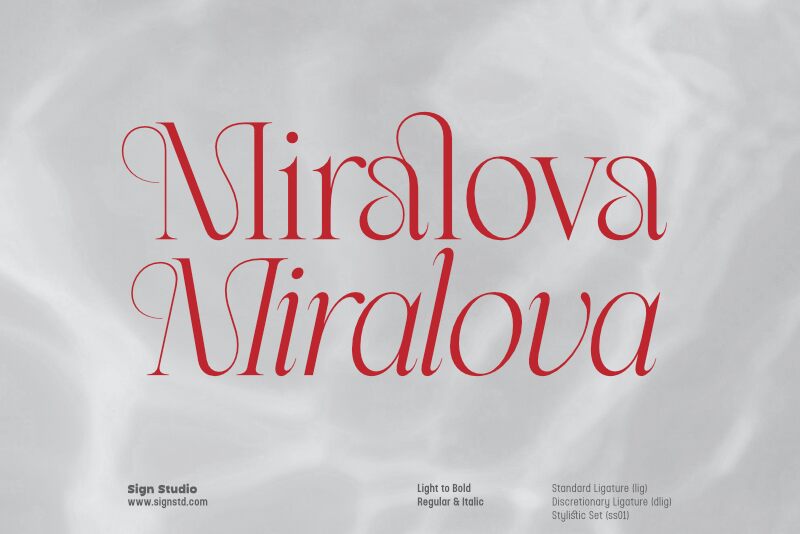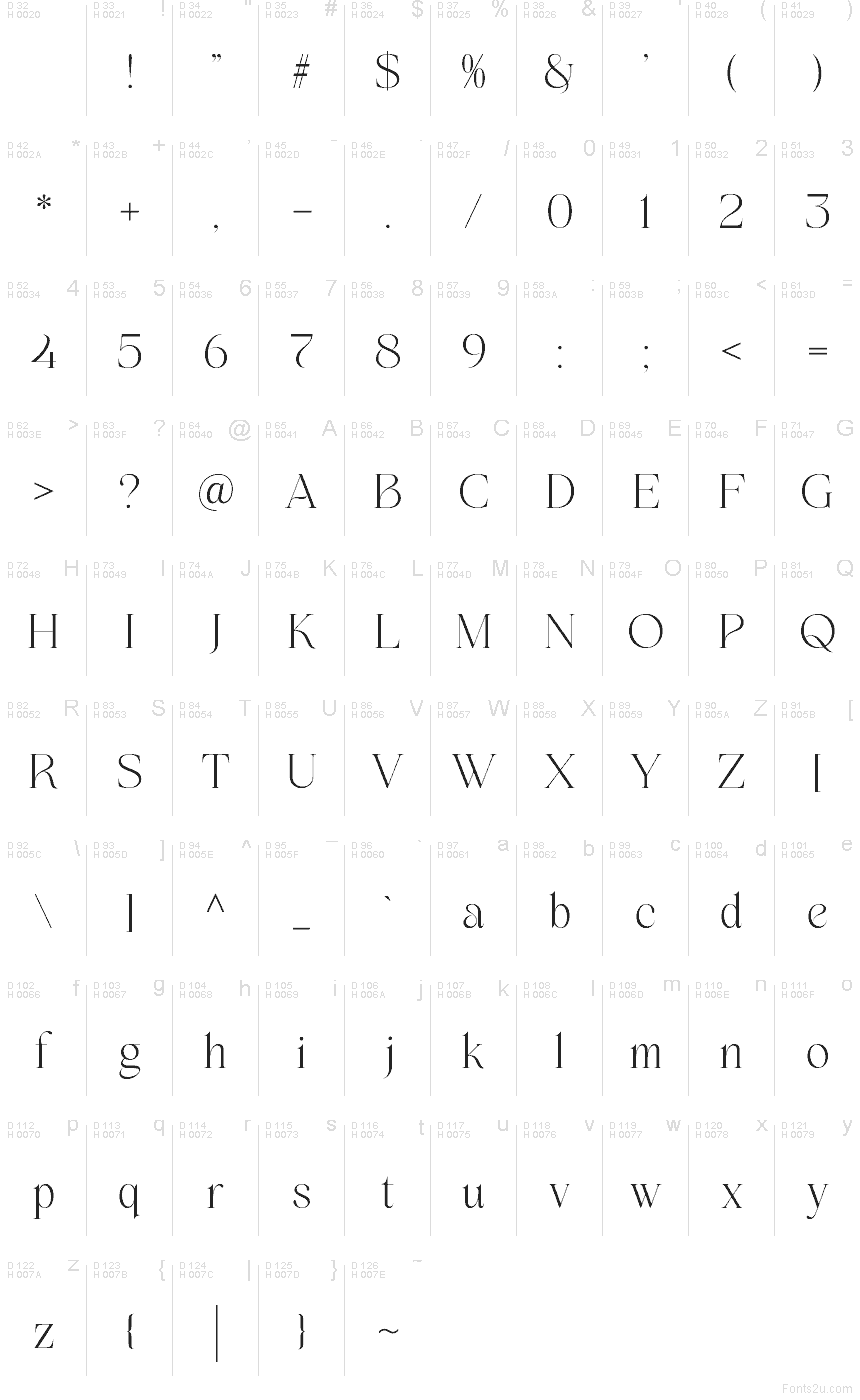
Miralova Regular
Miralova font by Sugiyanto of Sign Studio is a free elegant serif font with razor-thin strokes, tall proportions, and a calm, editorial rhythm. It feels like fresh ink on glossy paper—luxurious without being fussy—thanks to its airy spacing and crisp, sculpted curves that keep long words looking composed.
Using Miralova shines on fashion lookbooks, beauty packaging, magazine mastheads, wedding suites, luxury logos, book covers, and boutique website headers. Set it large to let the fine details breathe, and pair it with a clean sans (think neutral grotesk) for captions and product info—this free font stays refined while the layout does the talking.
Miralova font family by Sign Studio